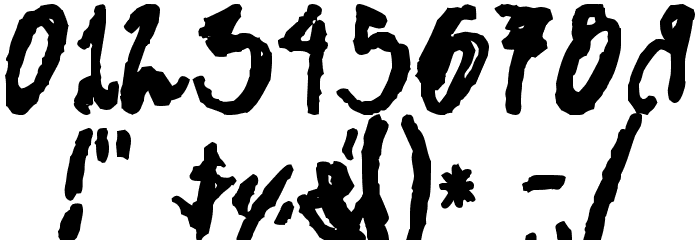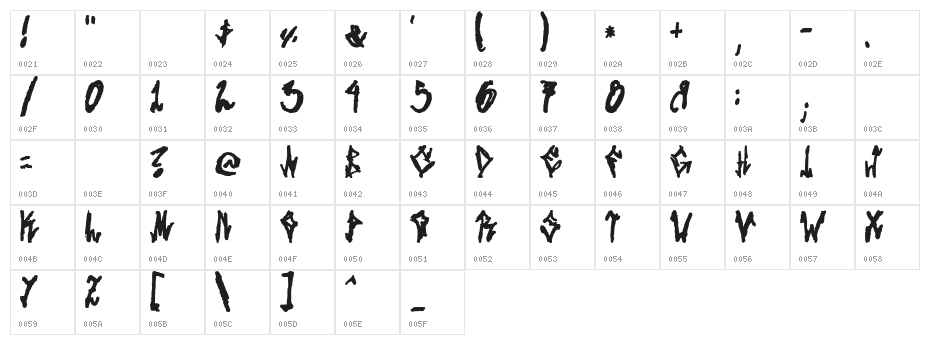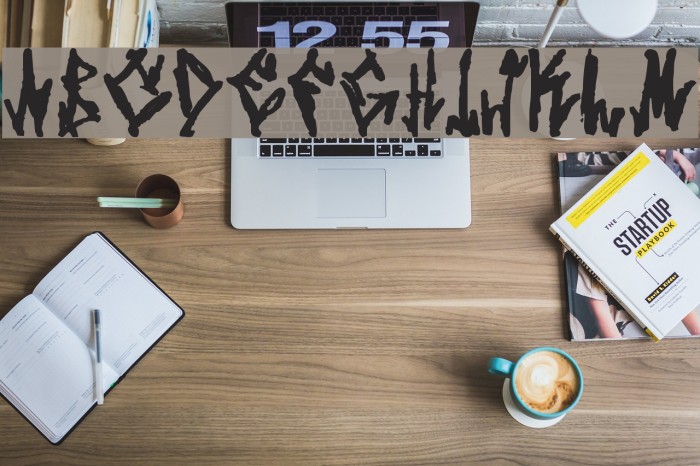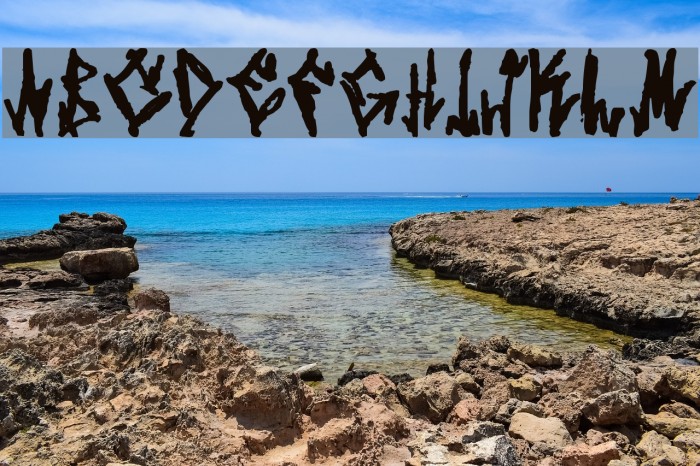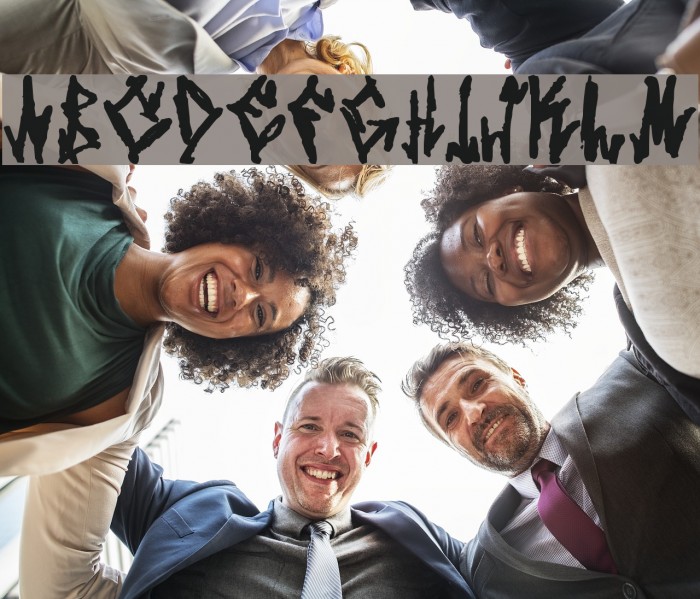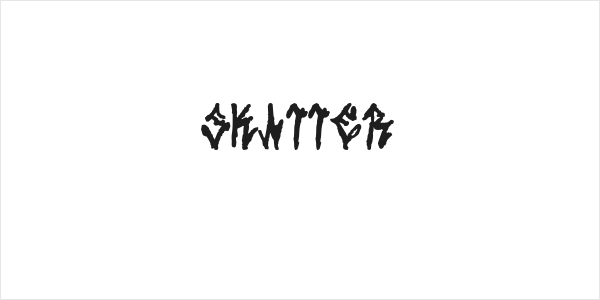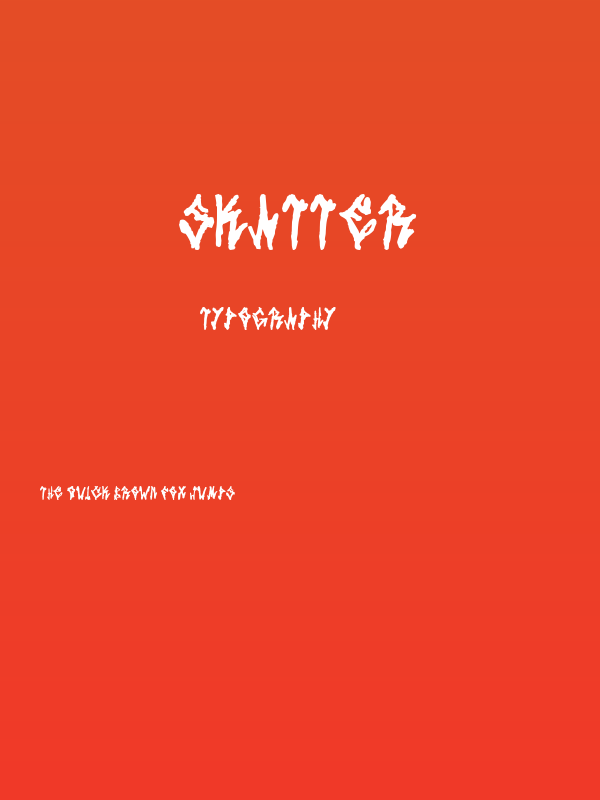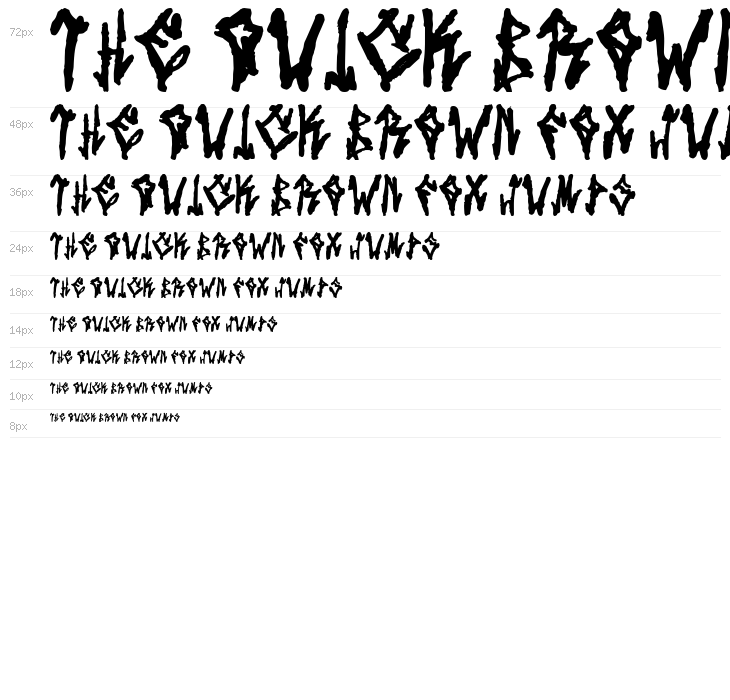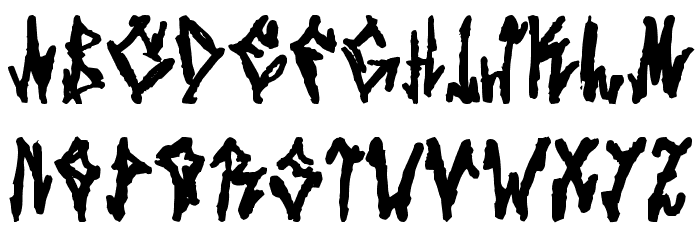
Skatter Font
Skatter Description
This font features a bold, graffiti-inspired style with a chaotic and energetic appearance. The characters are irregular and jagged, giving a sense of movement and spontaneity. The uppercase and lowercase letters maintain a consistent visual theme, with exaggerated strokes and uneven baselines. Numbers and special characters follow the same dynamic style, making the font suitable for creative and unconventional designs. The overall impression is one of rebellion and artistic flair, perfect for projects that require a bold statement.
| Use Case | Logos, Posters, Album Covers |
| Proposed Projects | Ideal for street art designs, music album covers, urban-themed posters, and edgy branding projects. |